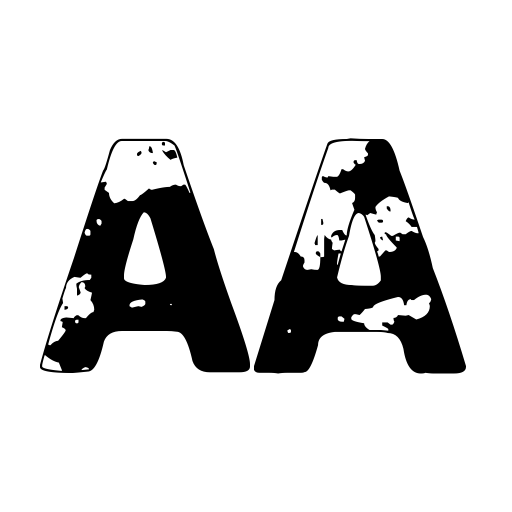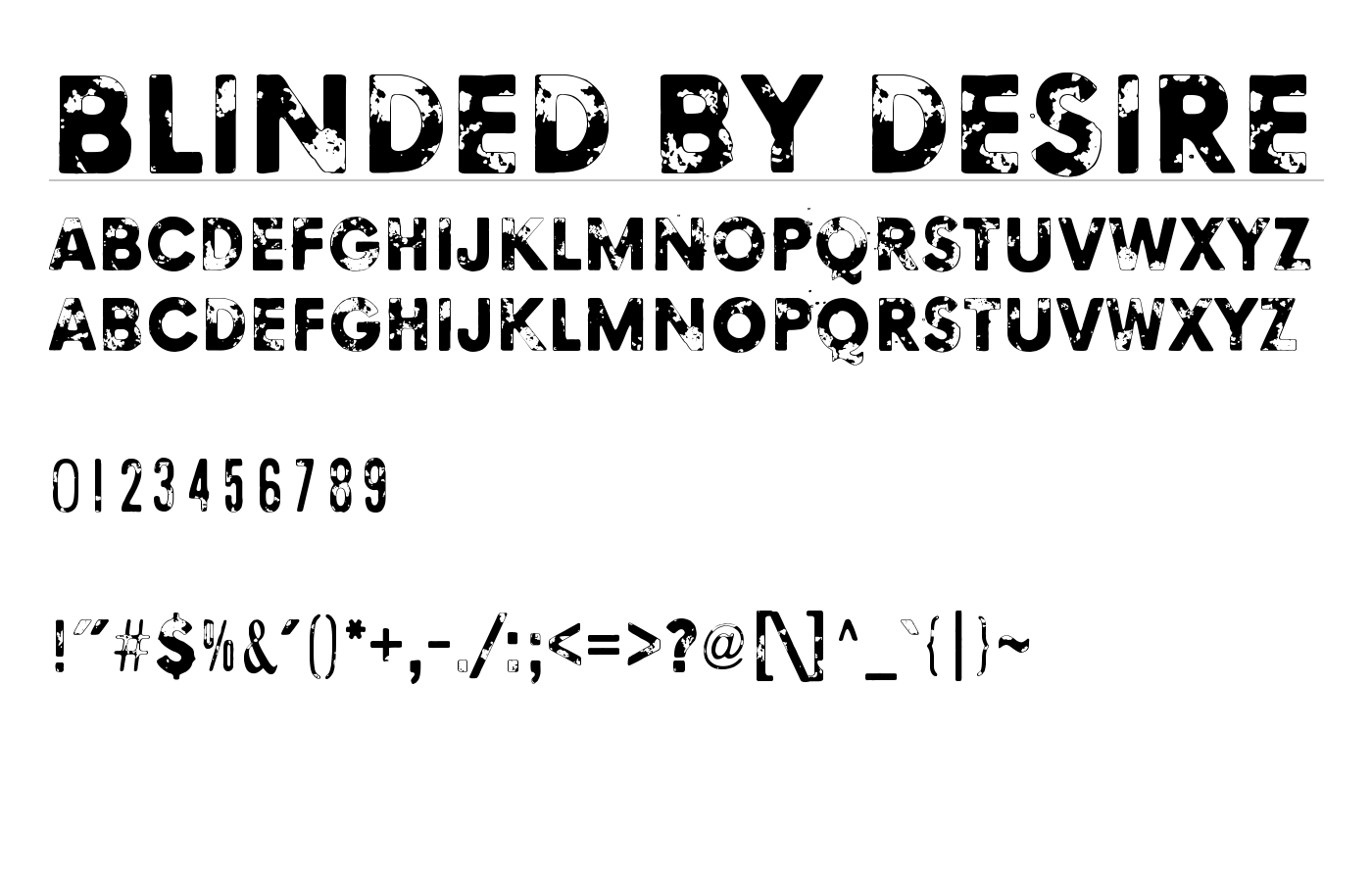
Blinded by Desire is a bold, distressed sans serif font with a strong, grungy texture that gives it a raw and edgy feel. Its heavy weight and rough, weathered appearance make it perfect for creating impactful headlines, posters, or branding projects that need a rebellious or vintage vibe. This font stands out with its striking presence and textured charm, ideal for designs that want to convey toughness and character.
Blinded by desire Font